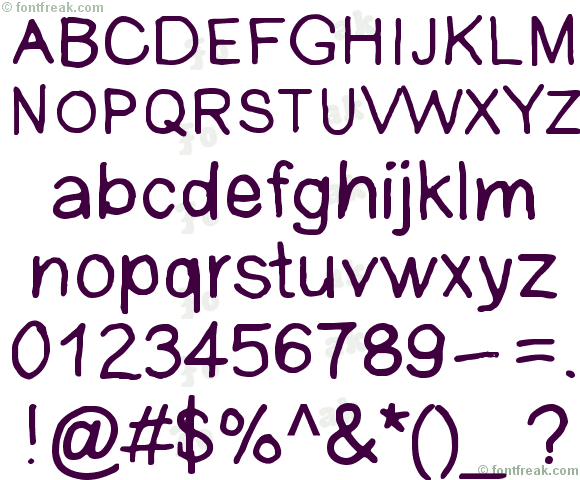
AnkeSans
AnkeSans is a captivating sans-serif font created by Anke Arnold, designed to bring a touch of modernity and playfulness to any project. With its clean lines and friendly appearance, this typeface strikes a balance between professionalism and approachability. The visual characteristics of AnkeSans include a medium stroke weight, providing excellent readability while maintaining a light and airy feel. The font features subtle contrasts, which enhance its aesthetic appeal without overwhelming the viewer. The spacing is thoughtfully designed to ensure clarity, making it ideal for various applications.
This versatile font is particularly well-suited for a range of use cases. It's an excellent choice for websites, helping to create a user-friendly interface that engages visitors. Additionally, AnkeSans works beautifully in branding materials, such as logos and business cards, where a contemporary look can make a lasting impression. The font is also perfect for printed materials like brochures and posters, enabling clear communication of information while attracting attention. Content creators will find AnkeSans ideal for social media graphics and blog headings, where an inviting and approachable style can enhance audience engagement.
What sets AnkeSans apart is its unique blend of simplicity and charm, making it an attractive option for both personal and professional projects. With the AnkeSans font free download, users can easily incorporate this delightful typeface into their designs, ensuring their work stands out in an increasingly visual world.